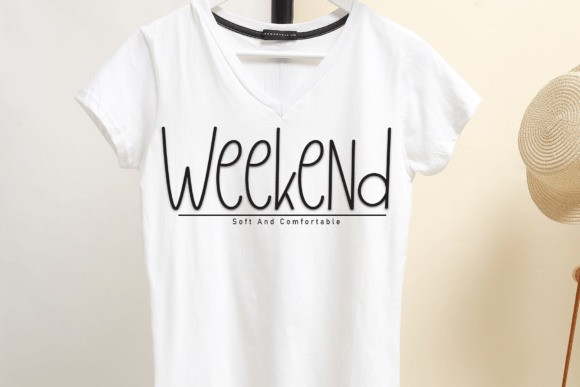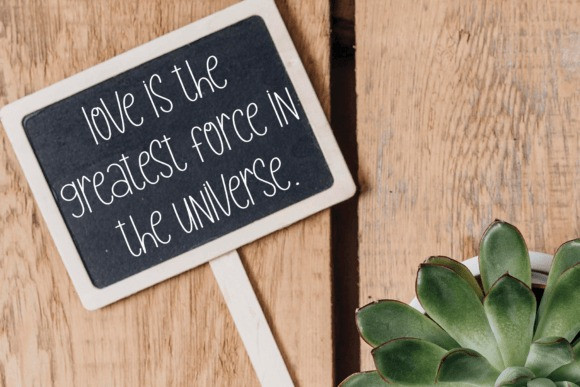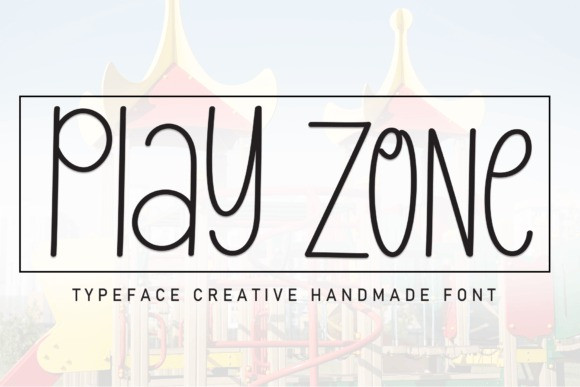
Play Zone Handwritten Font
Play Zone Handwritten Font is a sweet and friendly handwritten font. Cute and fun, this font is ideal for writing wedding invitations, cards, or any other design that might need a classic touch!